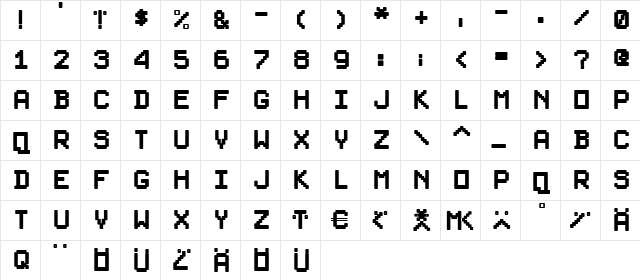
PixelSplitter Regular Font Preview
PixelSplitter Regular
PixelSplitter Regular Font Details
Design Context for PixelSplitter Typeface
PixelSplitter celebrates the constraints of early digital type, turning pixel geometry into a distinctive and immediately recognisable style.
A natural choice for retro game titles, chiptune music branding, 8-bit UI, and digital nostalgia projects.
Pro Tip: Pair PixelSplitter with flat colour palettes and simple geometric UI elements to reinforce its digital aesthetic.